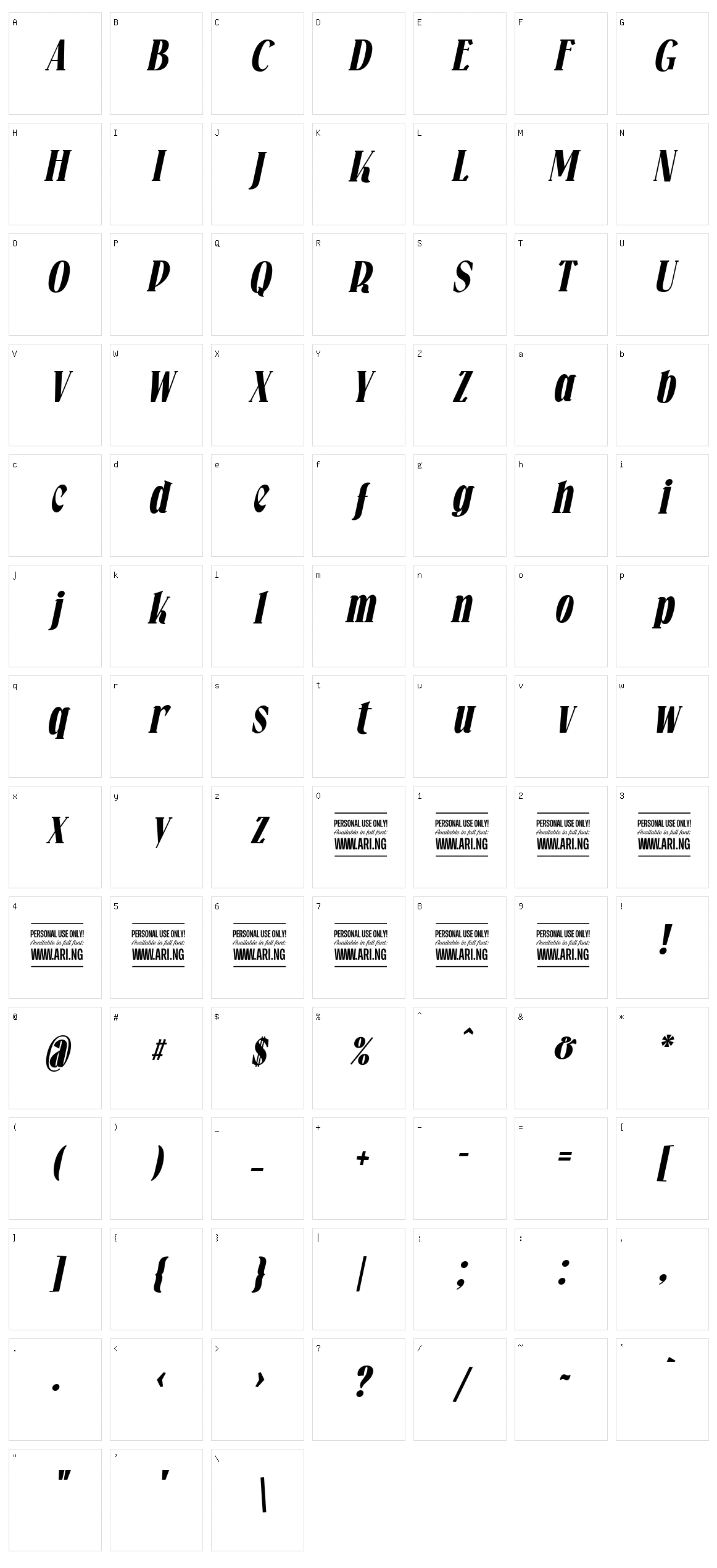
Falkin Serif
Designed by: Mans Greback
Category: Serif
This is a 1900's serif typeface designed by Måns Grebäck.
It comes as a thin regular and a thick bold, as well as italic versions of each of the weights.